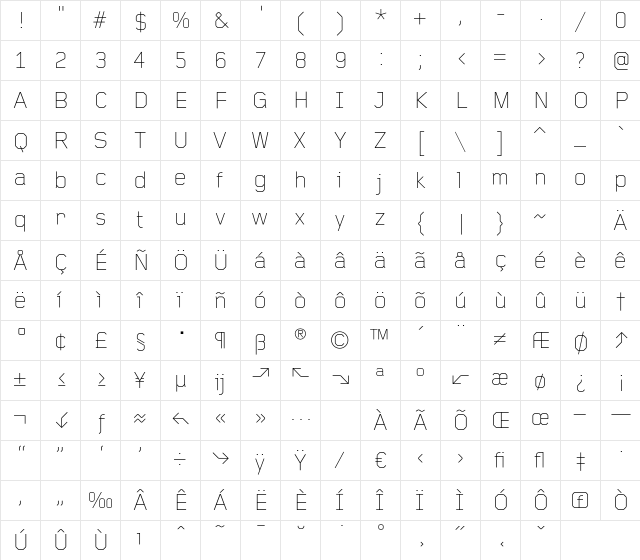
FoundryGridnik Light Free Font
FoundryGridnik Light
Design Context for FoundryGridnik
FoundryGridnik is a composed and adaptable typeface that performs quietly and consistently across a wide range of design contexts. Its slender proportions lend an understated elegance to any composition.